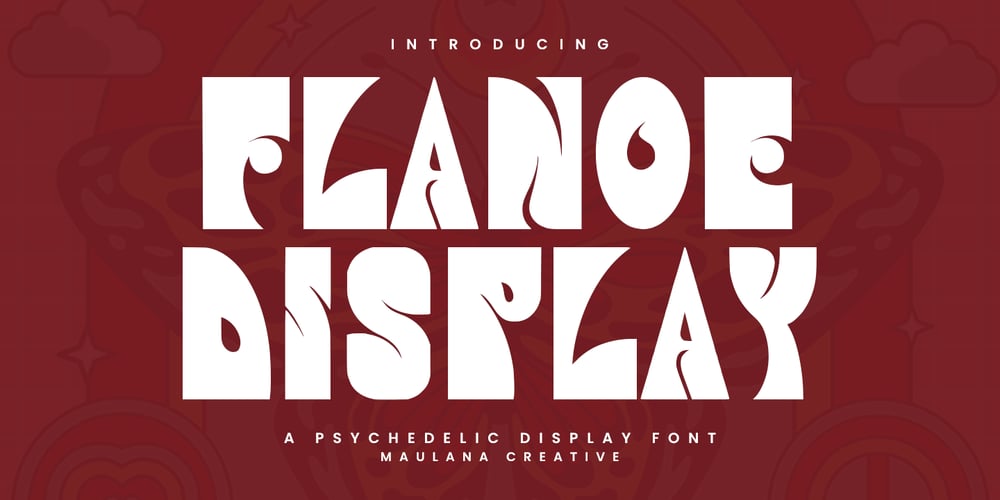
MC Flanoe Font Family was designed by Gilang Maulana and published by Maulana Creative. MC Flanoe contains 1 styles and family package options. Flanoe psychedelic font. Heavy stroke and vintage character. To give you an extra creative work. Flanoe psychedelic font support multilingual language. This font is good for logo design, Social media, Movie Titles, Books Titles, a short text even a long text letter and good for your secondary text font with script or serif. Make a stunning work with Flanoe psychedelic font.Cheers,Maulana Creative